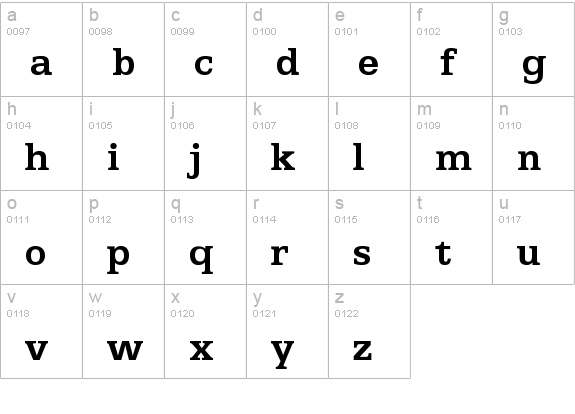
ATFAntique-Bold Font Details
ATFAntique-Bold is a strong, high-contrast variant in the ATFAntique typeface family \xE2\x80\x94 well suited to headlines, attention-grabbing titles, and strong calls-to-action.
ATFAntique-Bold is a classic and elegant serif font that exudes a sense of sophistication and timelessness. With its bold weight and distinctive serifs, this typeface is perfect for creating attention-grabbing headings and titles. The strong lines and sharp angles of ATFAntique-Bold give it a sense of authority and presence on the page. What sets ATFAntique-Bold apart is not just its striking design, but the fact that it is available for free download at FontsMarket.com. This means that you can add a touch of vintage charm to your projects without breaking the bank. Whether you're working on a print design, a website, or any other creative project, ATFAntique-Bold is a versatile font that is sure to make a statement. Download it today and elevate your typography game with this timeless typeface.